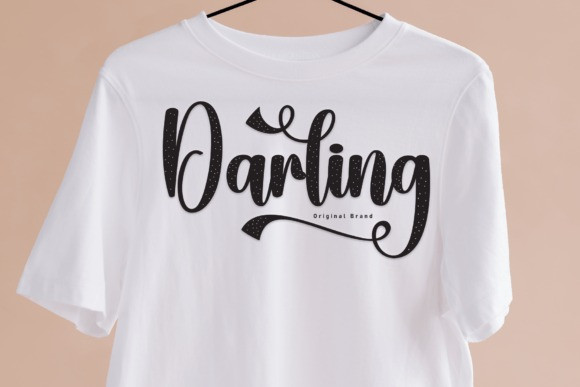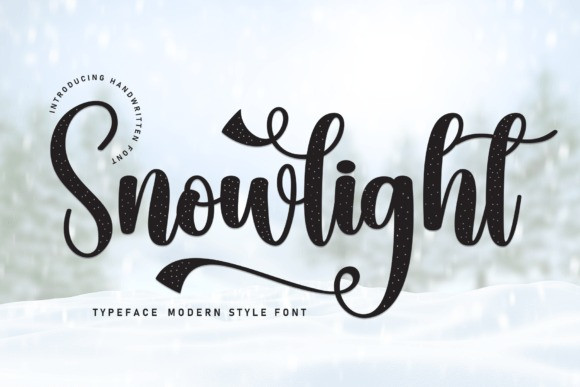
Snowlight Script Font
Snowlight Script Font is a graceful handwritten font that dances on the page with delicate swashes. Its elegant strokes capture the charm of a winter’s frosty breath, adding a touch of sophistication to your every word. Embrace the enchanting beauty of handwritten notes with Snowlight.